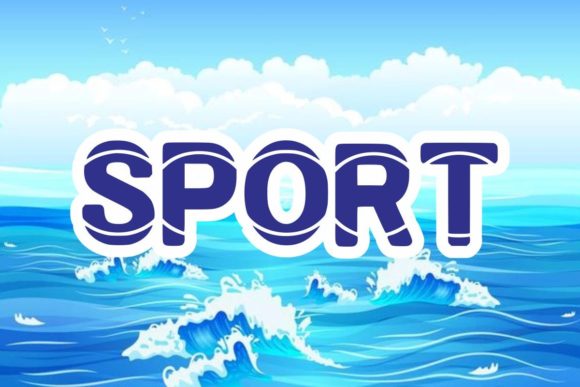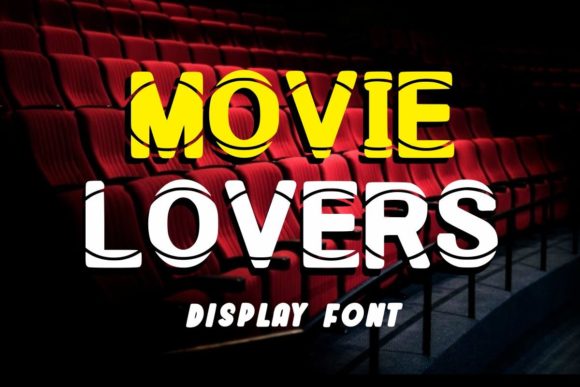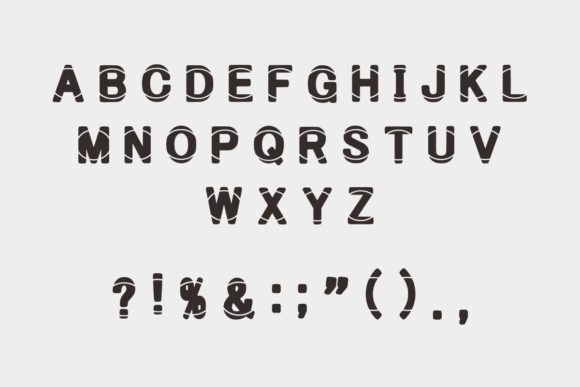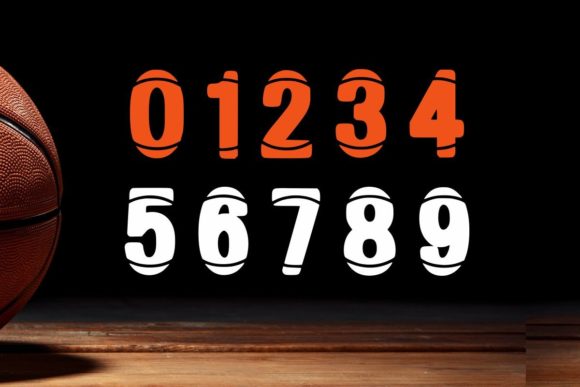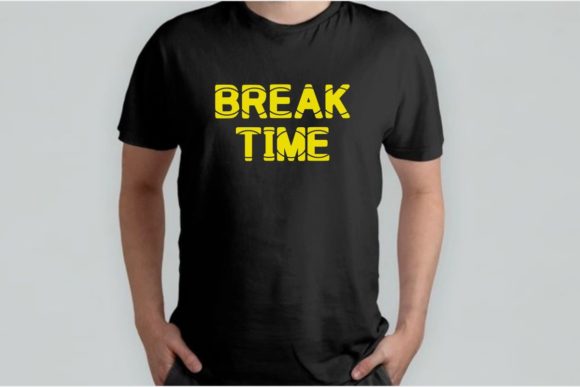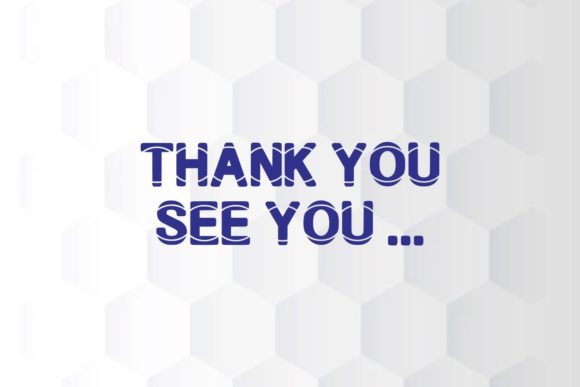
The Perfect Dribble of Creativity: Introducing Basket Ball Font
Do you ever find yourself stuck in a creative rut, struggling to find the perfect font to bring your project to life? I know I do. One minute you’re brainstorming ideas, the next you’re scrolling through font libraries, searching for that elusive spark. And then, it happens – you stumble upon a font that makes your heart skip a beat. For me, that font was Basket Ball.
Basket Ball Font is a bold and sporty display font, designed to make a statement. Whether you’re creating digital designs, crafting handmade cards, or presenting your latest project, this font has the potential to be your new go-to. And for designers, Basket Ball Font is a valuable asset – its versatility and energy can elevate any project from good to great.
With Basket Ball Font, the possibilities are endless. So why settle for ordinary when you can make a slam dunk with this amazing font?
Basket Ball Font Key Features
- Font Family: A custom-designed font family specifically created for basketball-related applications.
- Character Set: Includes a wide range of characters, including uppercase and lowercase letters, numbers, punctuation marks, and special characters.
- Unique Characteristics: Features a bold, dynamic design with a unique blend of modern and classic elements, making it ideal for basketball-themed projects.
Basket Ball Font Review
At first glance, Basket Ball Font seems like an exciting project with a lot of potential. Here’s what I think works well:
- ✨ Unique and playful feel: The font has a quirky, energetic vibe that could be perfect for sports-related projects or branding.
- ✨ Good for titles and headings: The font’s bold lines and rounded edges make it a great choice for headings and titles.
However, there are some limitations that need to be considered:
- ⚠️ Limited character set: The font seems to be missing some essential characters, including punctuation marks and certain symbols.
- ⚠️ Not suitable for body text: The font is a bit too playful and may be difficult to read for large blocks of text.
Overall, Basket Ball Font is a fun and creative font that could be a great addition to a project. However, it’s not a one-size-fits-all solution and should be used thoughtfully to get the best results.
Use the Basket Ball font to create a bold and energetic design. Pair it with bold colors and geometric shapes to create a dynamic visual effect. Experiment with different font sizes and styles to add depth and interest to your design.
The Basket Ball font is perfect for creating designs related to sports, fitness, and youth culture. Use it to create eye-catching posters, flyers, or social media graphics for basketball teams, fitness studios, or youth organizations.